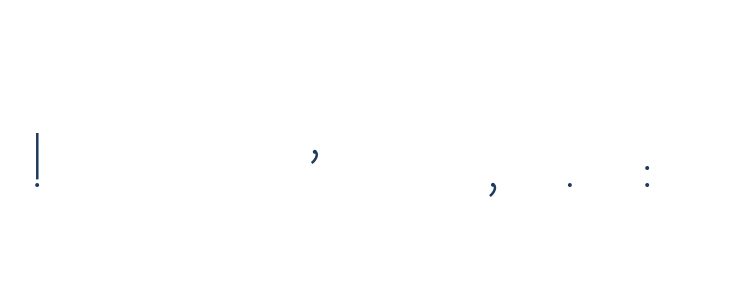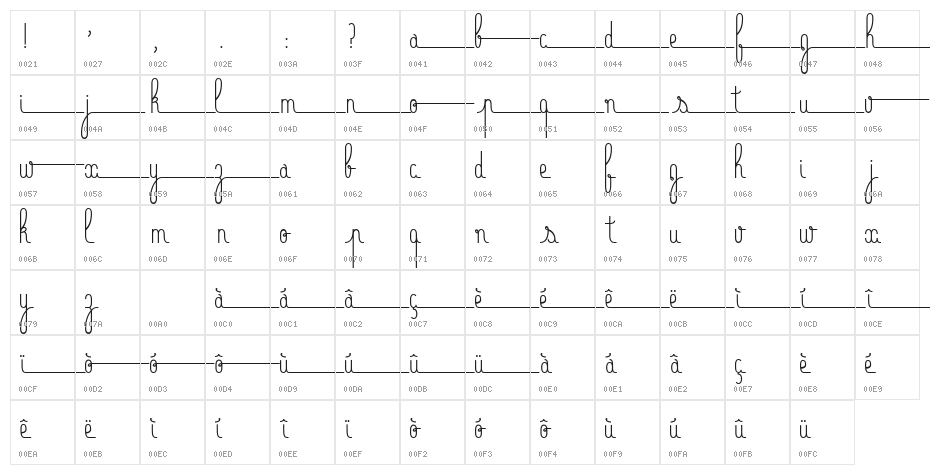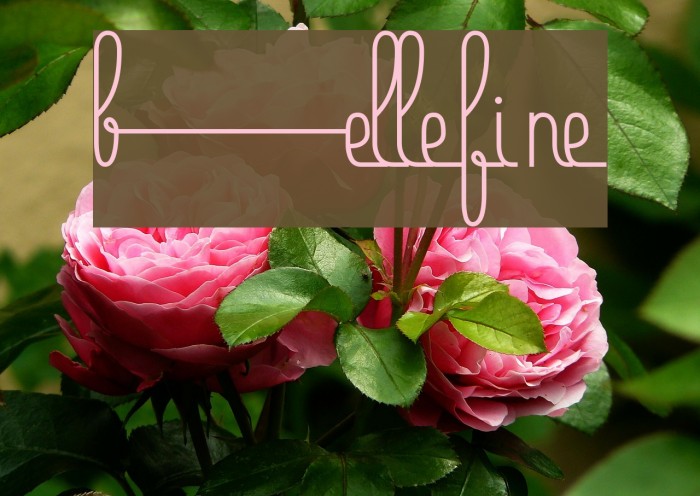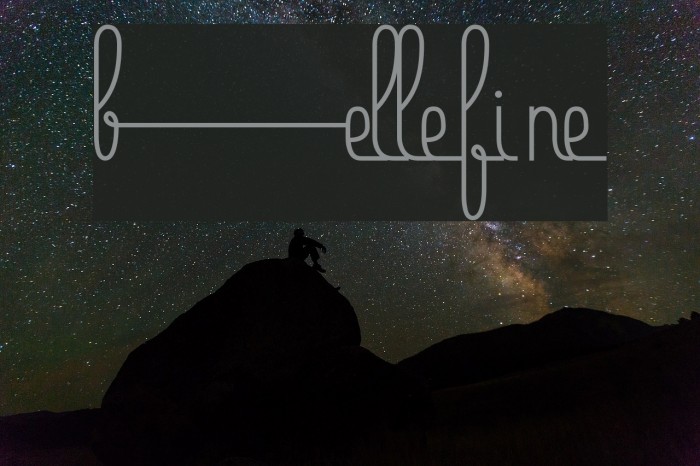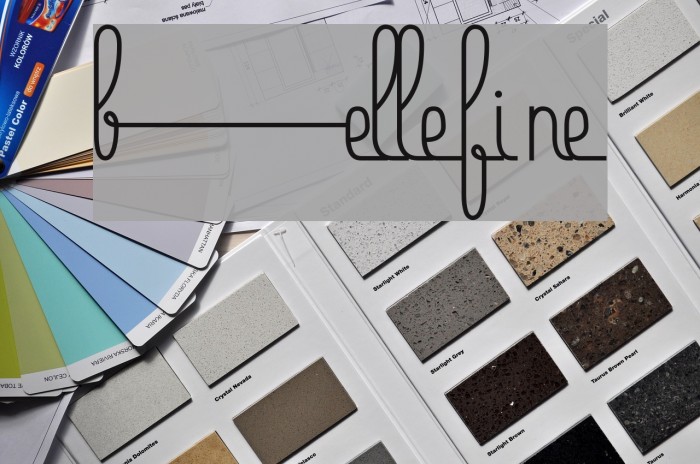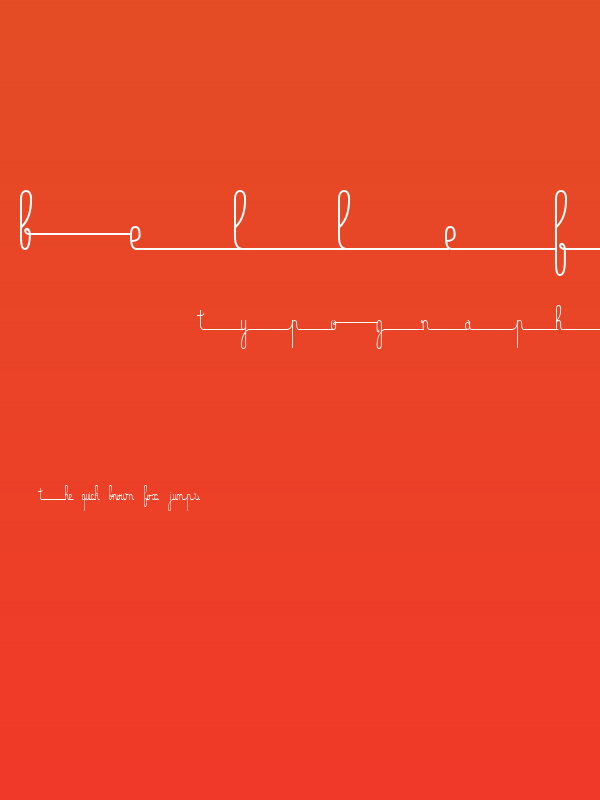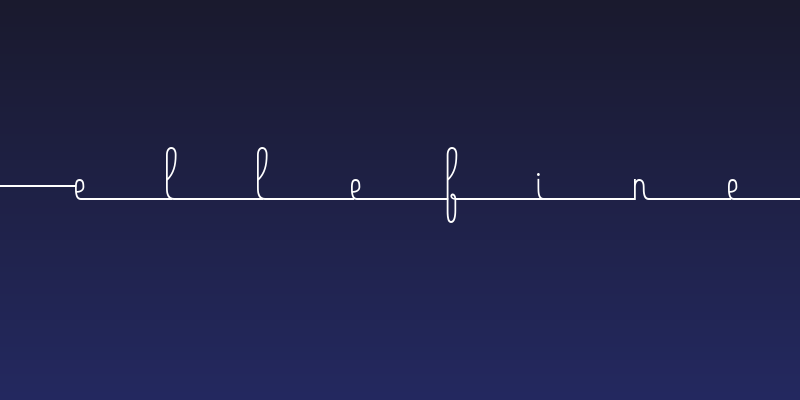
Bellefine Font
Bellefine Description
This font features a unique, continuous line style that gives it a modern and artistic flair. The characters are interconnected, creating a seamless flow that is both elegant and playful. The lowercase letters have a tall, narrow appearance, with elongated ascenders and descenders that add to the font's distinctive look. The uppercase letters maintain this fluidity, enhancing the overall cohesiveness of the design. The font's thin strokes and minimal contrast contribute to its delicate and sophisticated aesthetic, making it suitable for creative and decorative applications.